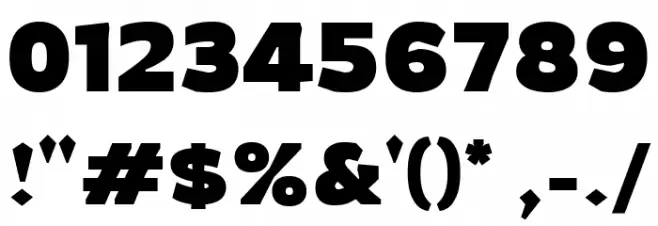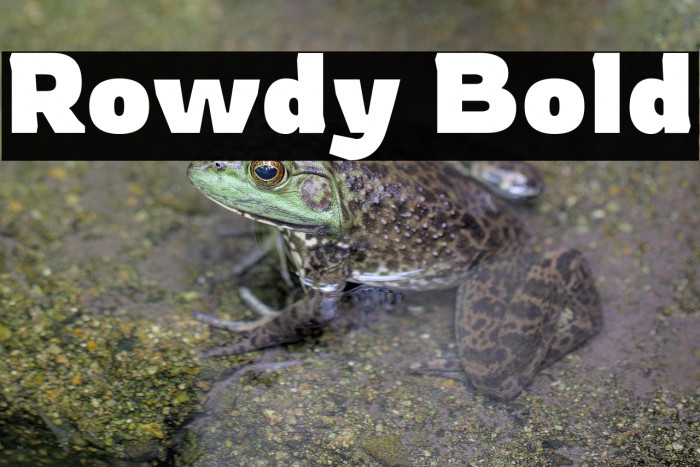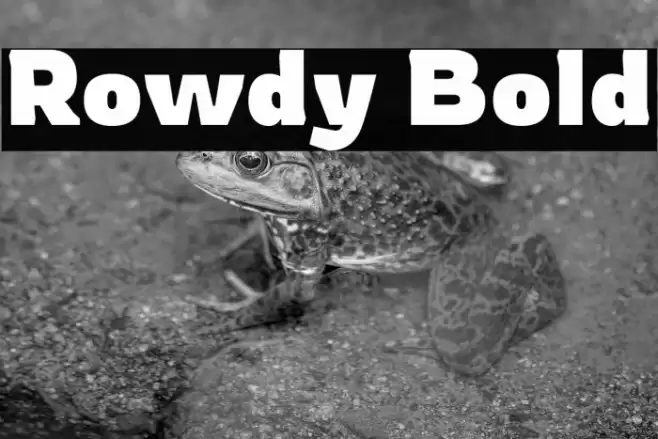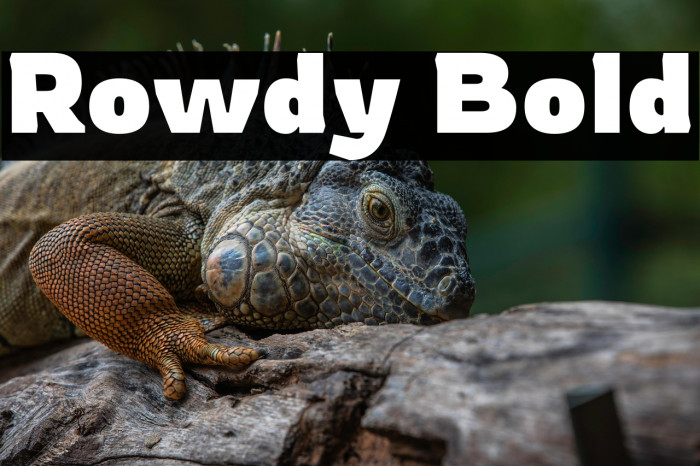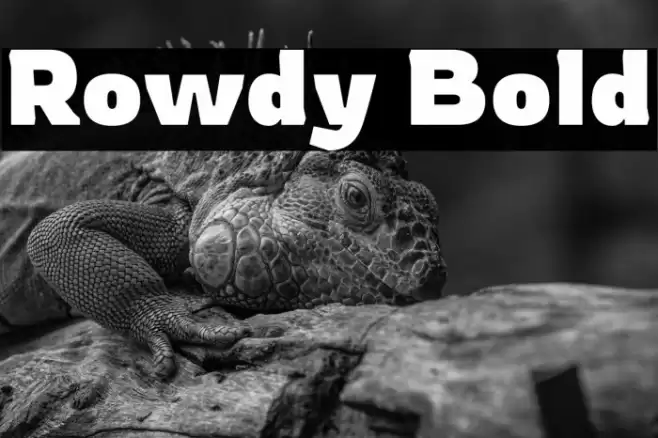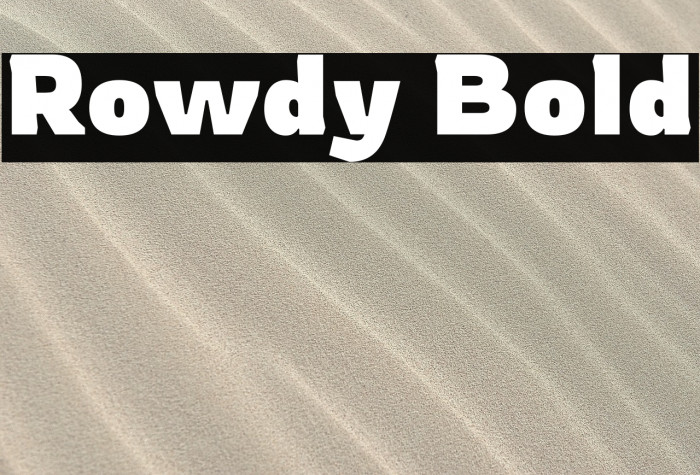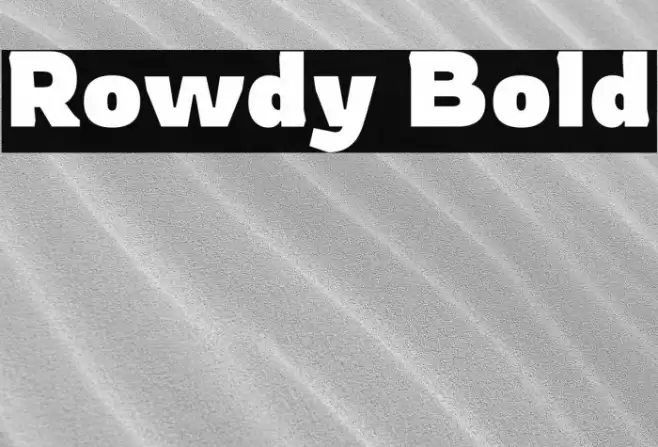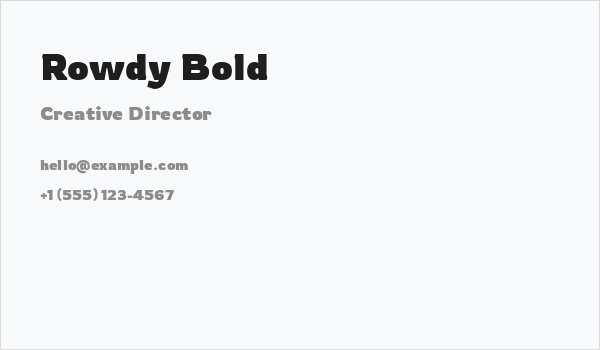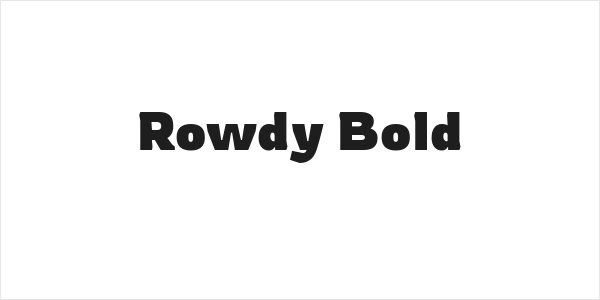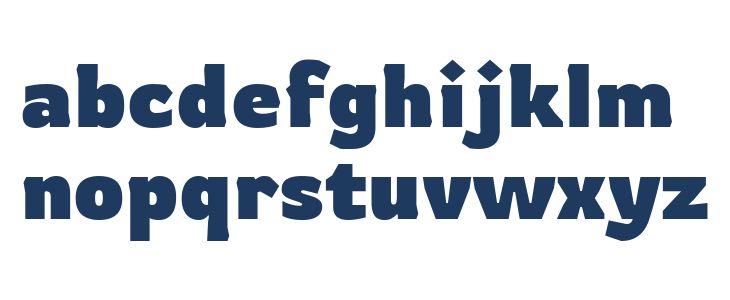
Rowdy Bold Font
Rowdy Bold Description
This bold and assertive font features thick, robust strokes that convey a sense of strength and confidence. The uppercase letters are particularly striking, with a solid presence that makes them ideal for attention-grabbing headlines. The lowercase letters maintain the same boldness, ensuring consistency across different text sizes. Numbers and special characters are equally bold, making them stand out in any context. The font's design is straightforward yet impactful, with a modern aesthetic that suits a variety of contemporary applications.